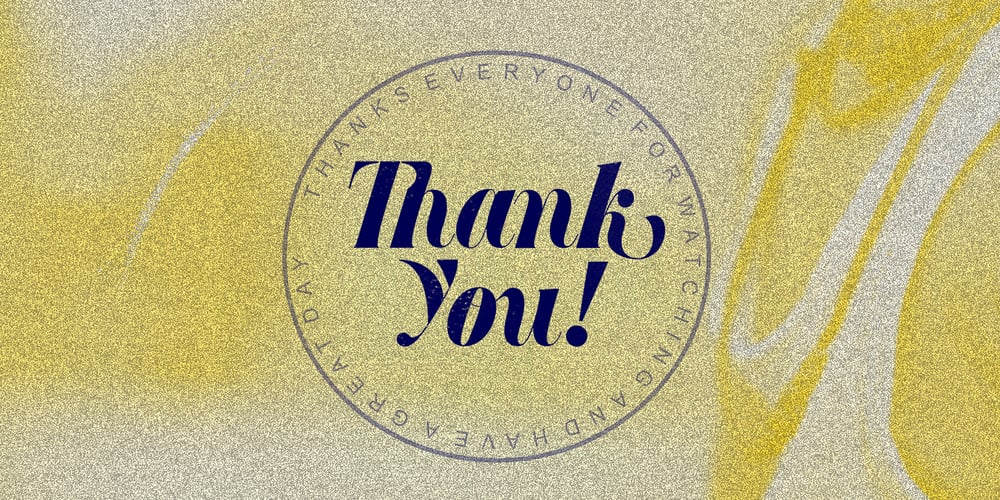
Thestone Font Family was designed by Akmal Yusar and published by Picatype. Thestone contains 1 styles and family package options. Thestone is a font display with a noble and vintage appearance. It has serif at the beginning of stroke and formal design. Thestone has an alternative character, and a binder. all with special characteristics in the past. Thestone is perfect for creating something that feels good and vintage or a sporty look for your design. This letter makes it very flexible. You can design beautiful, elegant and diverse typographic elements. This is perfect for logos, letters, shirt designs, editorial illustrations, product name packages, labels, old coffee shops. Files included: Thestone OTF Thestone is coded with PUA Unicode, which allows full access to all the extra characters without having special designing software. Mac users can use Font Book , and Windows users can use Character Map to view and copy any of the extra characters to paste into your favourite text editor/app.